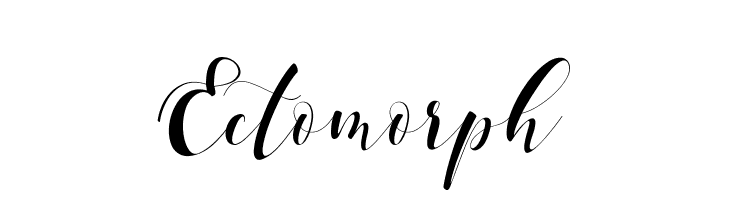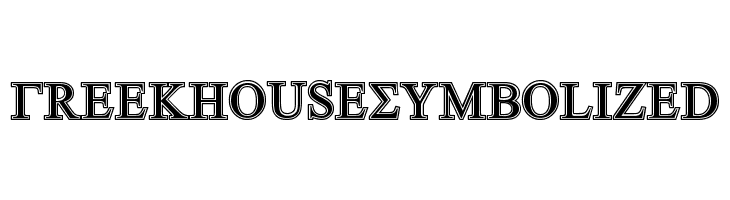
An elegant, flowing script font with graceful curves and fluid strokes.
A bold, three-dimensional font with strong shadow effects and geometric design.
A bold, geometric, and abstract design with angular shapes.
A playful, robot-themed font with geometric shapes and a futuristic style.
A bold, shadowed font with a three-dimensional effect and sharp serifs.
A futuristic, geometric font with hollow, outlined letterforms.
A bold, brush-style font with expressive, dynamic strokes.